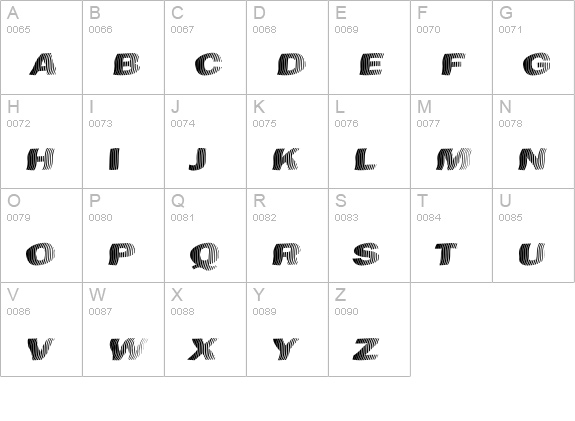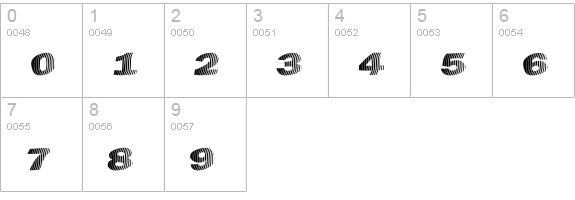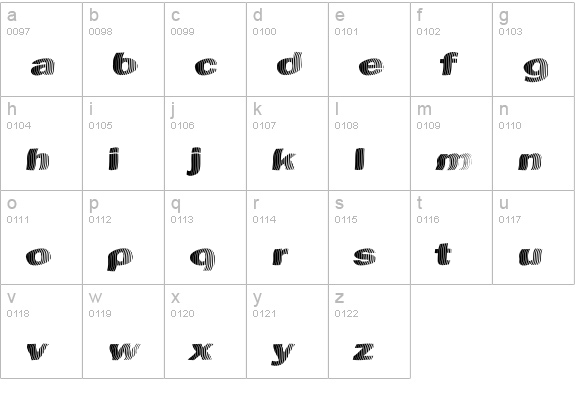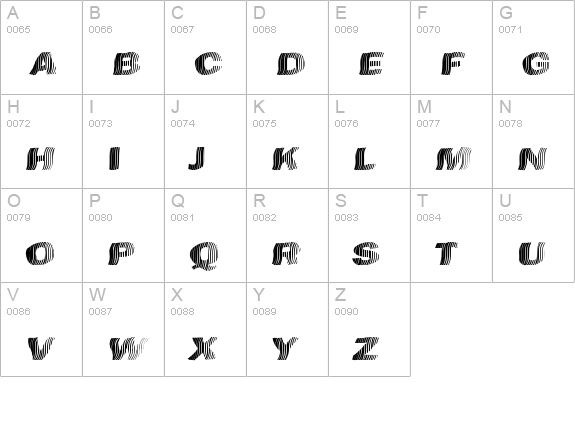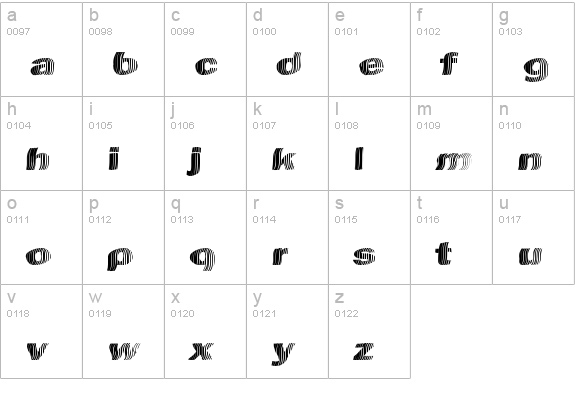
Chefs Slice Novice font is a charming and playful typeface that exudes a sense of warmth and creativity. Perfect for adding a touch of whimsy to your designs, this font features unique and quirky letterforms that are sure to catch the eye. Whether you're working on a menu, logo, or branding project, Chefs Slice Novice font will bring a sense of fun and originality to your work. And the best part? Chefs Slice Novice font is completely free to download at FontsMarket.com! You can easily add this delightful font to your collection without any cost, making it a fantastic option for designers looking to expand their toolkit without breaking the bank. So why wait? Download Chefs Slice Novice font today and start adding a sprinkle of creativity to your projects.